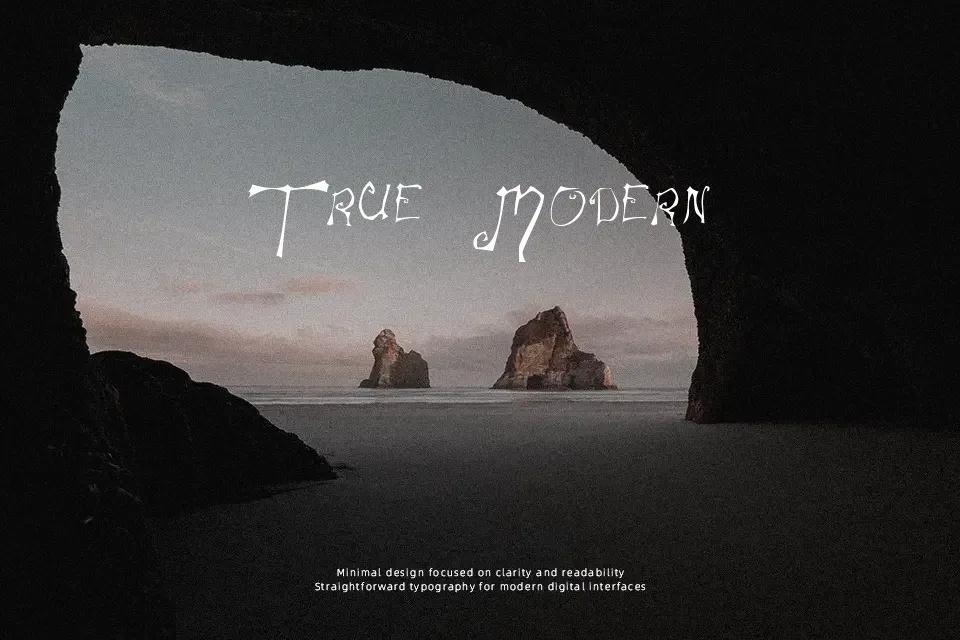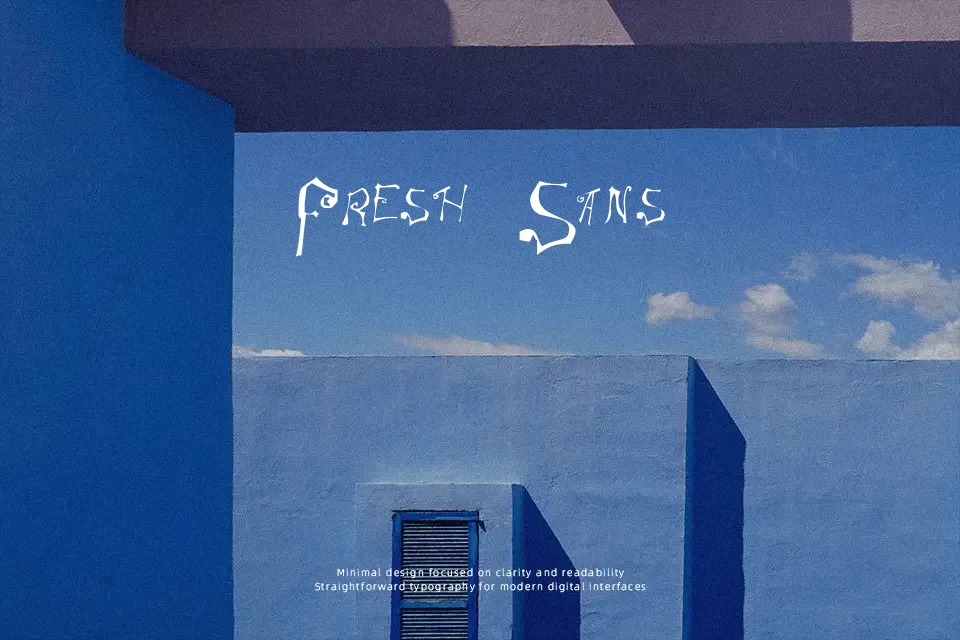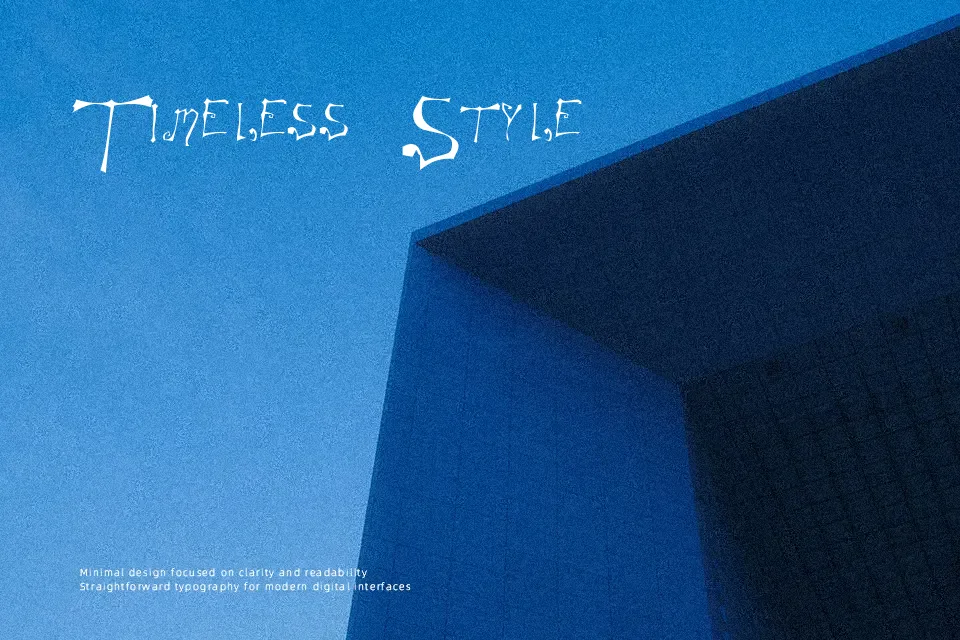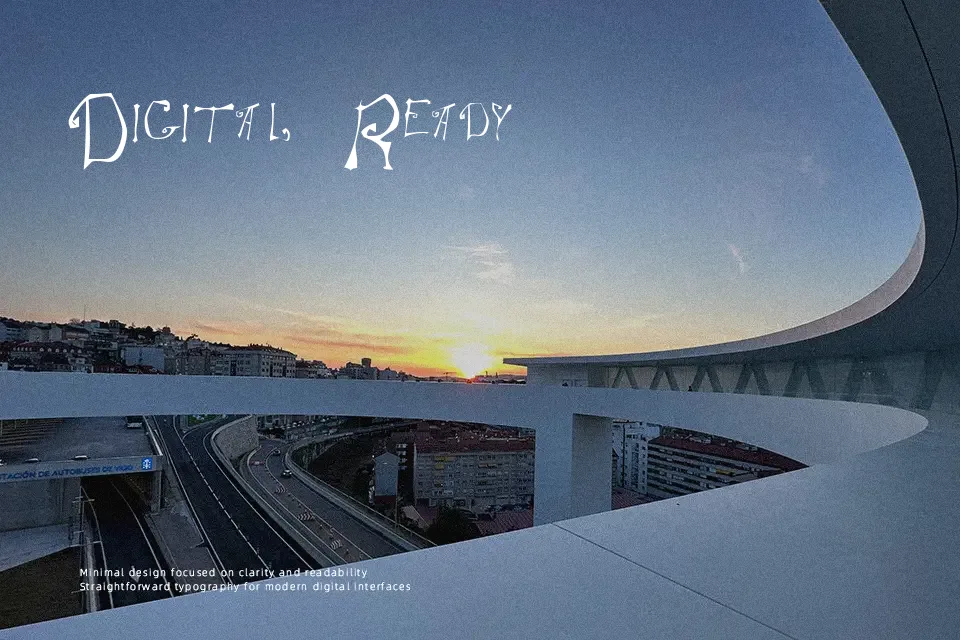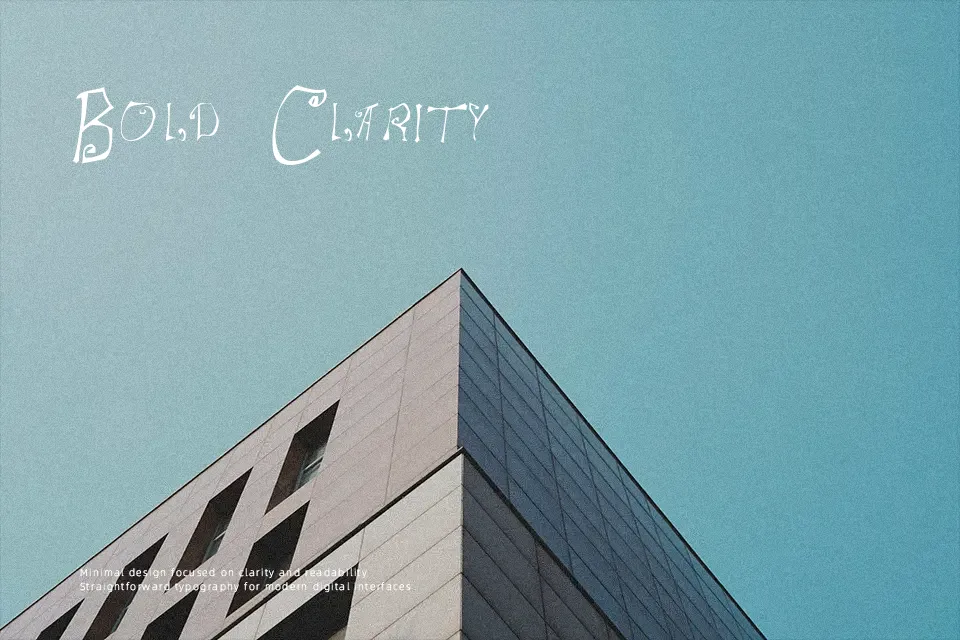
Spit Curl Font
Spit Curl Font presents an ornate display design defined by outward spiral terminals and rounded ornamental loops attached to standard letter stems. The glyphs exhibit uniform line thickness with wide character spacing, creating a lively cadence across short text strings. Its circular flourishes give title treatments a distinctly cheerful tone, making the typeface well suited for celebratory greeting cards, novelty product labels, and festival banners. However, the heavy decorative coils obscure letter differentiation at smaller scale, making the font unsuitable for dense body paragraphs or technical documentation. The open letter spacing effectively maintains individual glyph recognition when rendered at prominent headline sizes.
Best For: children’s party invitations, whimsical product packaging, festival title banners, greeting card headlines
Not Ideal For: continuous body text, corporate financial reports, mobile user interfaces, small print captions
Perfect for headline, holiday, and invitation, with a creative and decorative style.